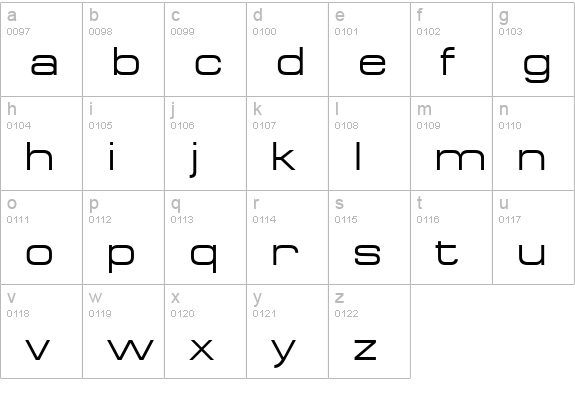
Minima Expanded SSi Expanded is a distinctive, extended-width variant in the Minima typeface family \xE2\x80\x94 well suited to design and typography projects.
Minima Expanded SSi Expanded font is a sleek and modern typeface that exudes sophistication and elegance. With its clean lines and extended letterforms, this font is perfect for creating a contemporary look in your designs. The expanded version adds an extra level of versatility, making it ideal for headings, titles, and other prominent text. What makes Minima Expanded SSi Expanded font even more appealing is that it is available for free download at FontsMarket.com. This means that you can easily access and use this stylish typeface in your projects without any cost. Whether you're working on a website, poster, or branding materials, Minima Expanded SSi Expanded font is sure to make a statement with its bold and distinctive appearance. Elevate your design projects with this fantastic font today!